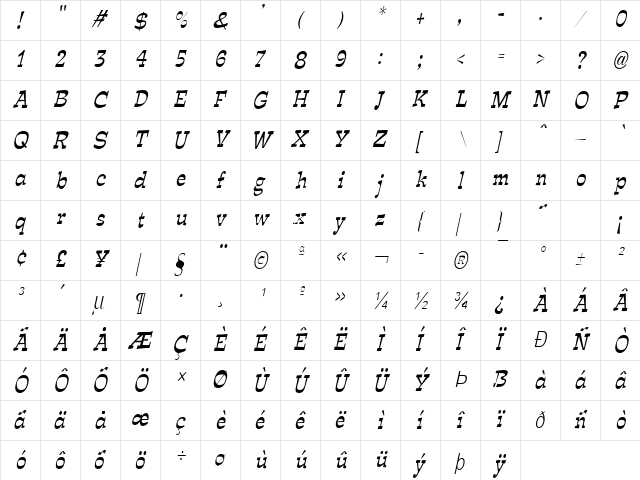
Expose Thin Condensed Italic Font Preview
Design Context for Expose Thin Condensed Typeface
Expose Thin Condensed offers clean, dependable letterforms without strong stylistic allegiance, making it a practical choice for designers who need flexibility. The slanted form adds forward momentum and visual energy. Its slender proportions lend an understated elegance to any composition. The condensed width makes it efficient for tight spaces without sacrificing legibility.
Pro Tip: Try Expose Thin Condensed for annotation and caption copy alongside an upright companion — the contrast in angle creates a dynamic but ordered typographic system.